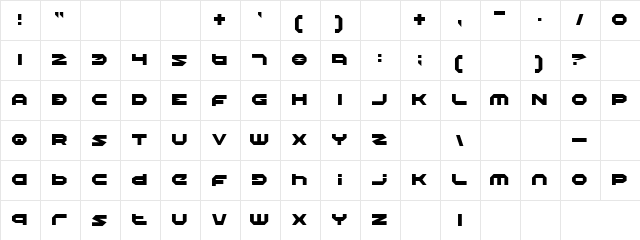
Dudu Regular
Design Context for Dudu Typeface
Dudu offers clean, dependable letterforms without strong stylistic allegiance, making it a practical choice for designers who need flexibility.